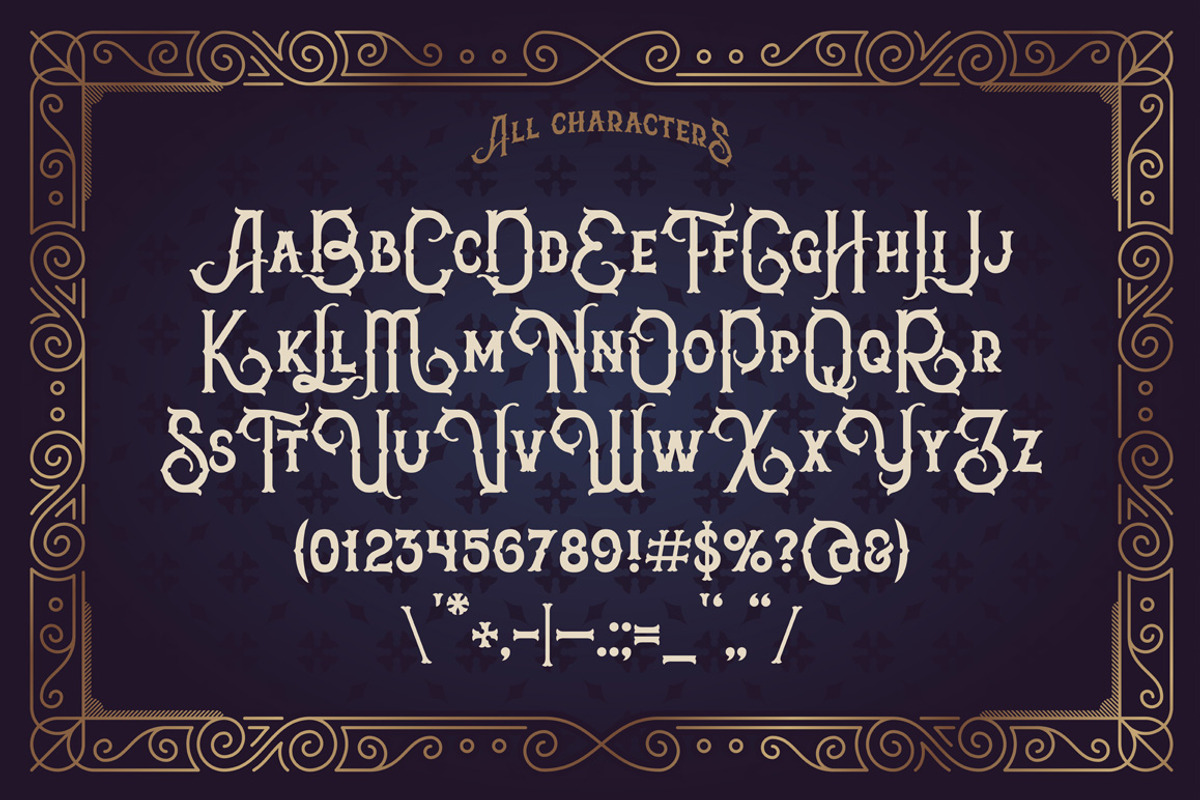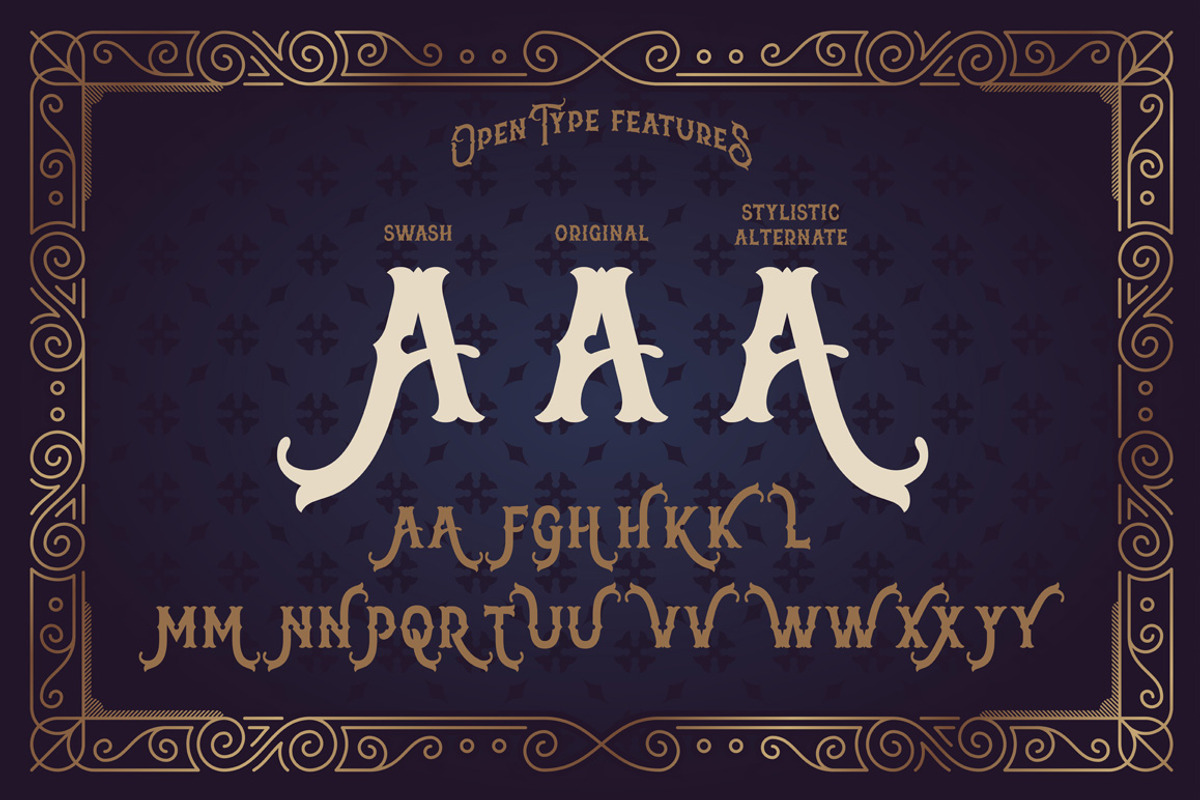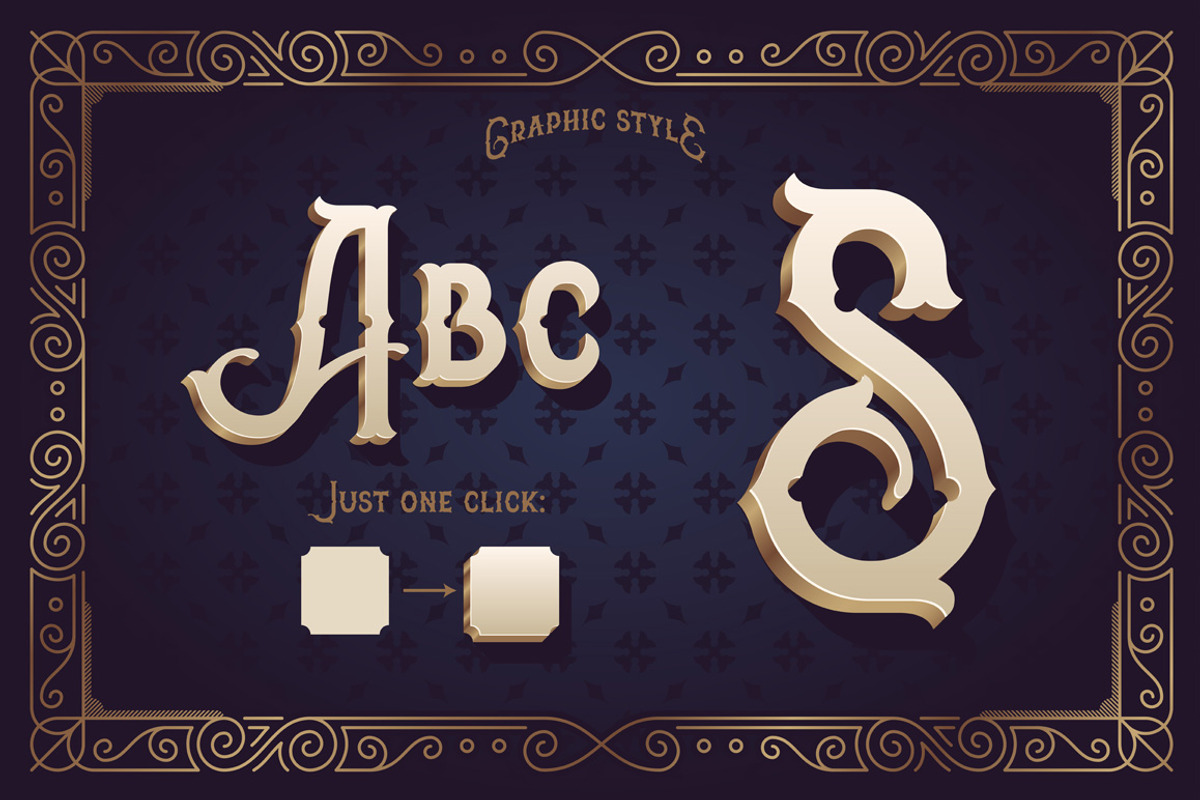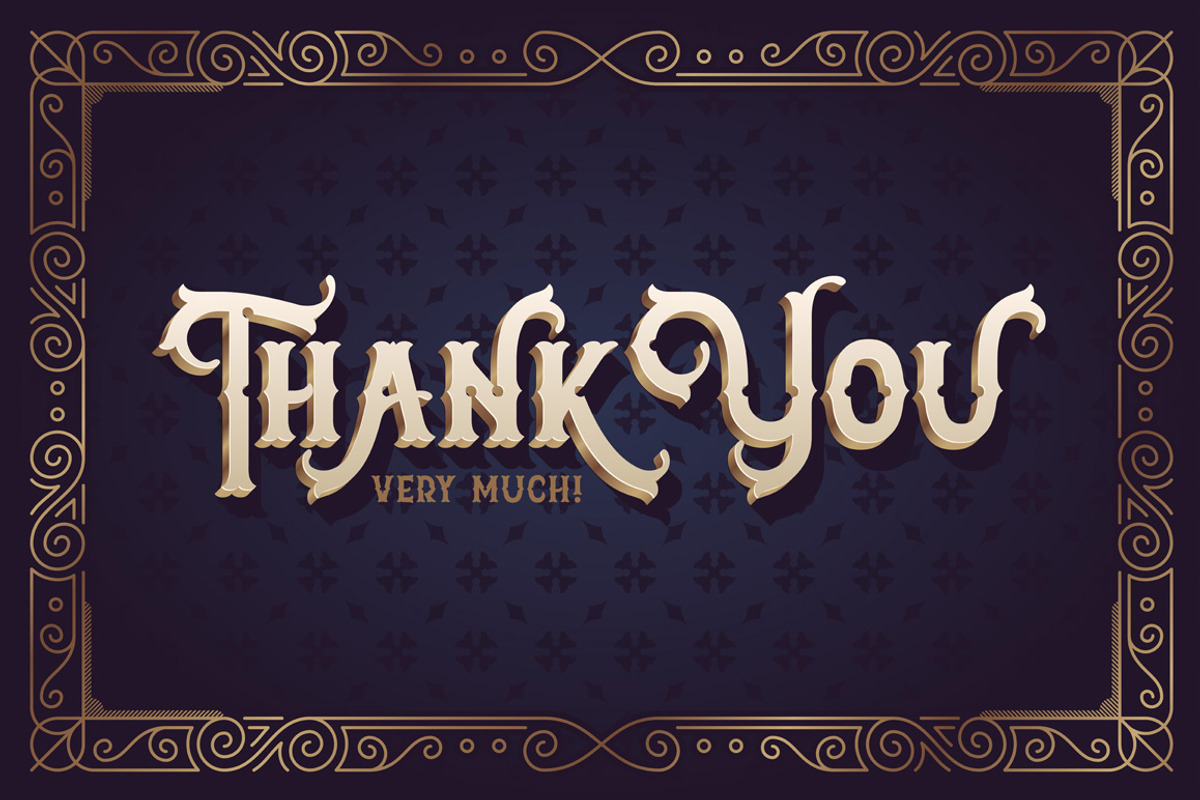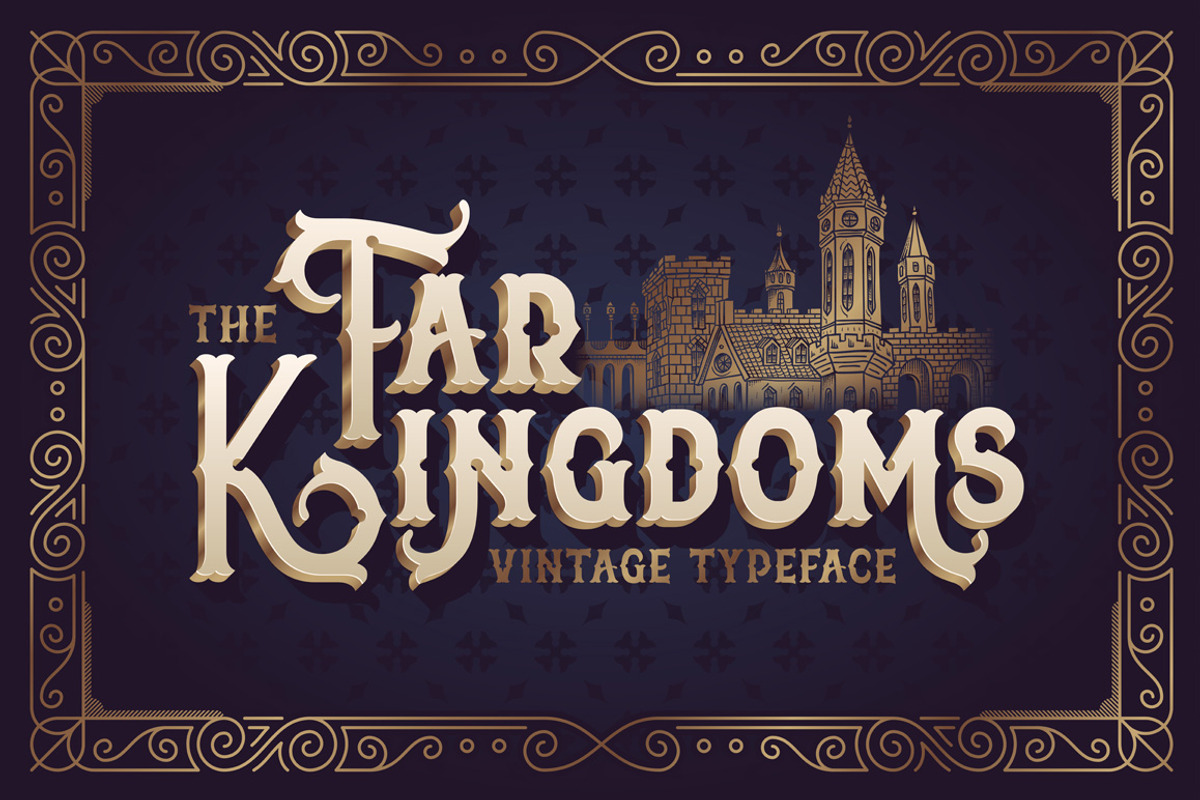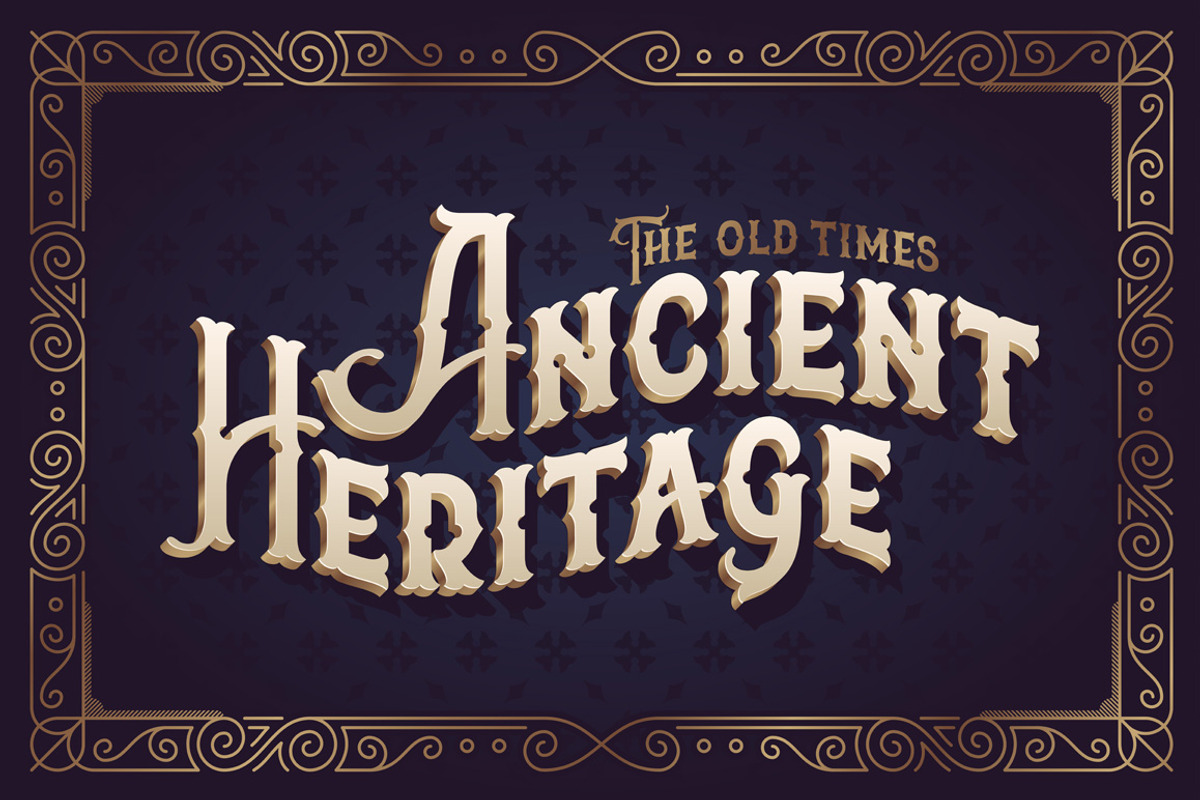
The Far Kingdoms font
The Far Kingdoms font by Gleb Guralnyk is a font selected for branding, posters, packaging, typography.
- It comes with lots of bonus graphics, including a castle illustration, decorative frame and vector graphic style for illustrator.
- Also this font has an OpenType features, such as stylistic alternates (5th screenshot).
Why The Far Kingdoms font is worth a look
The Far Kingdoms font by Gleb Guralnyk fits naturally into Branding, posters, packaging, typography.